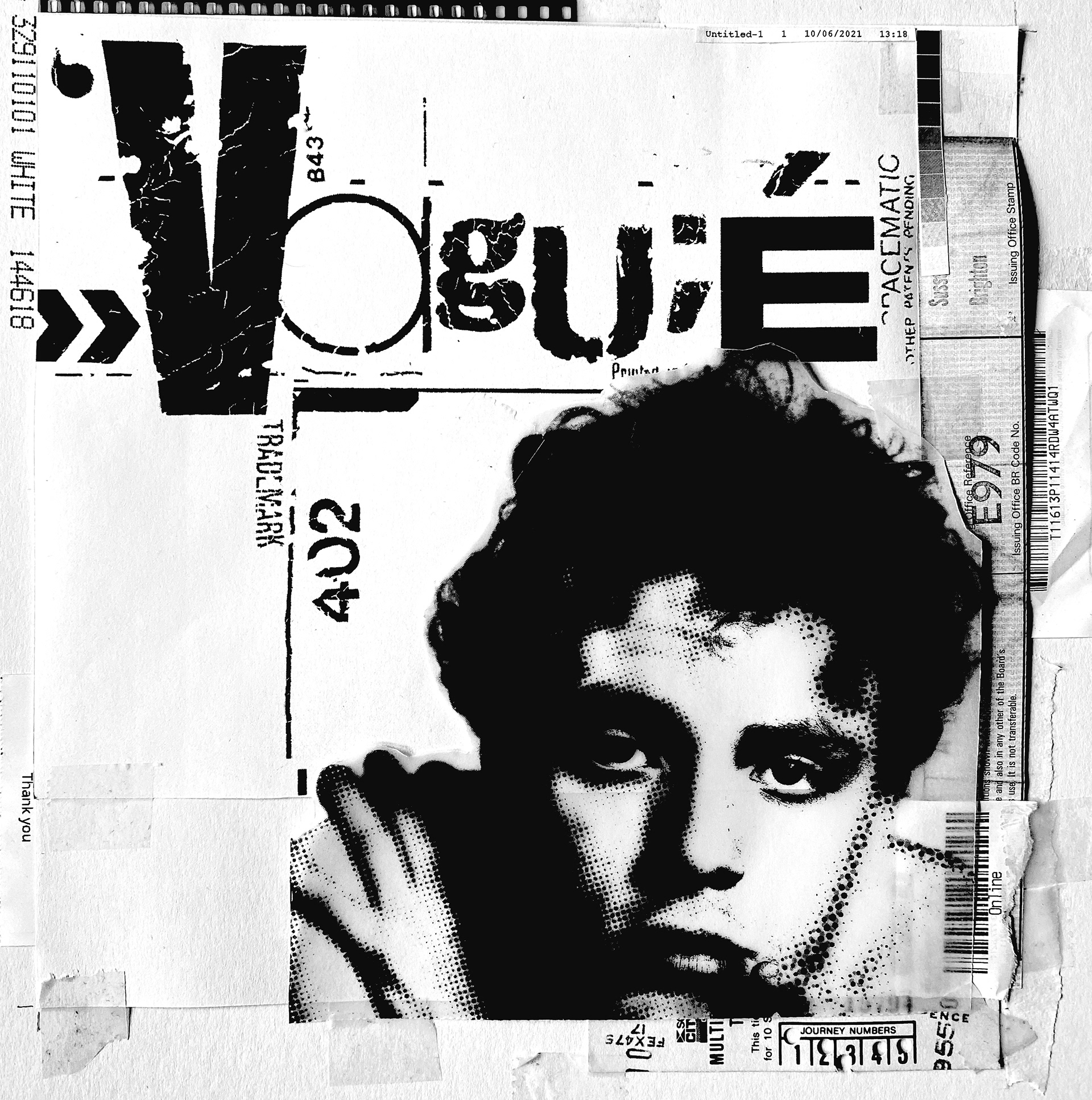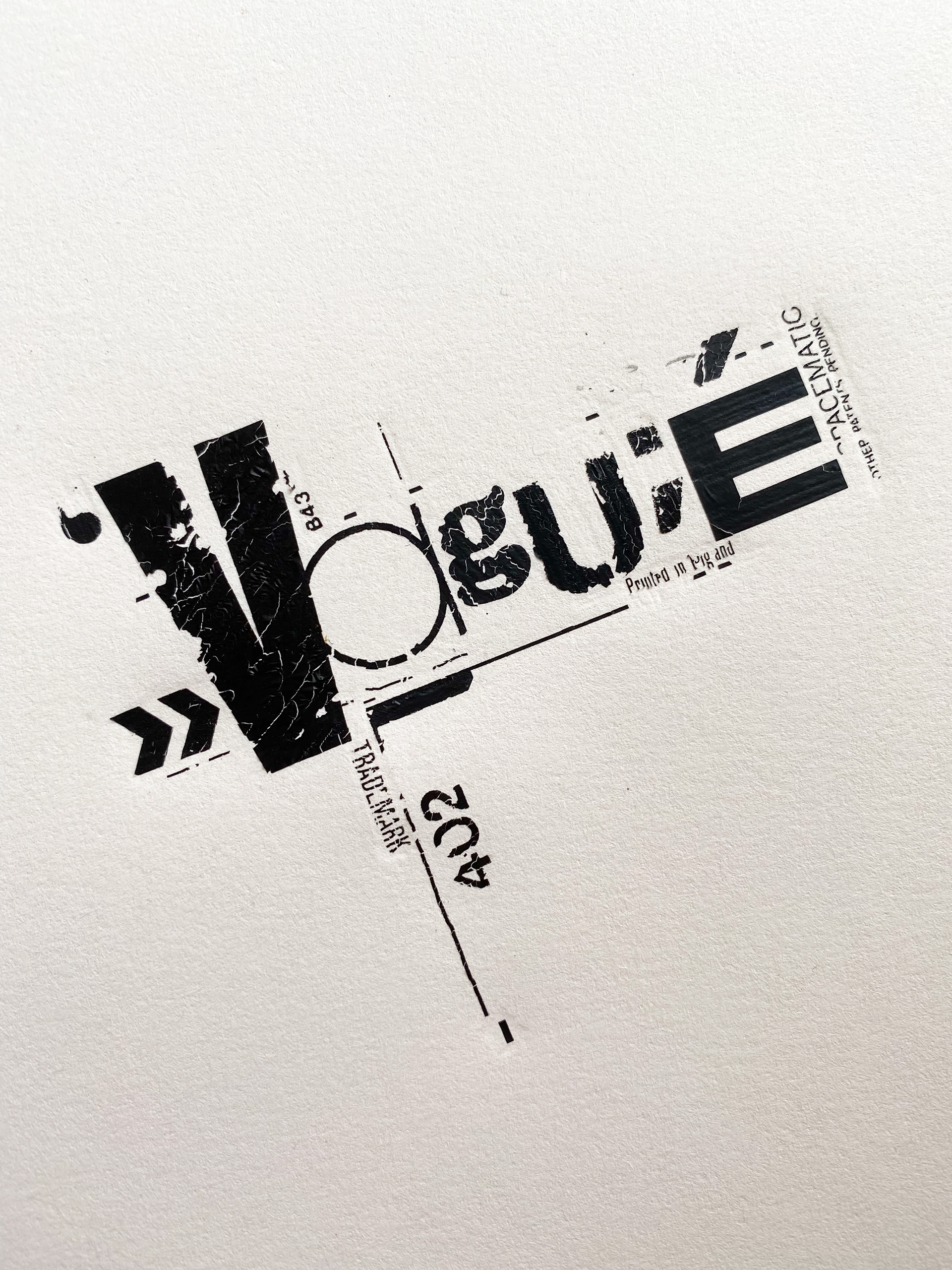
Masthead design for a satirical look at fashion and the its pursuit for ‘now’ and ‘on-trend’.
Anarchic in style which is the complete antithesis of fashion. Cover sketch concept presenting how the layout and structure would work. However, this design would be dynamic and would change on every issue… which reflects the fickle and revolving nature of the fashion industry. The Vague title being the only constant element of the whole design.